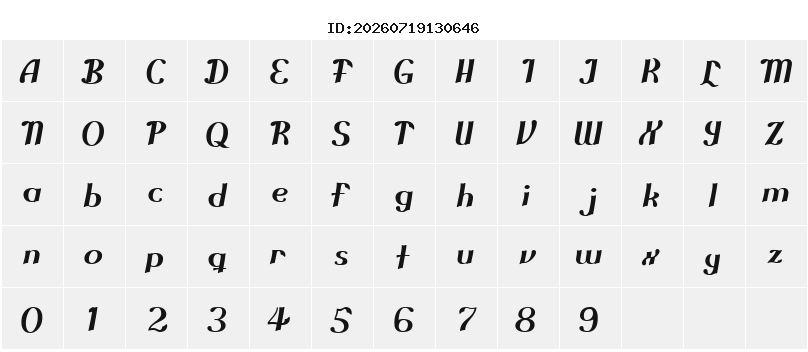
Cloud Control Preview
• Font Name: Cloud Control
• Font ID: TemplateCloud: Cloud Control: 2013
• Full Font Name: Cloud Control
• PostScript Name: CloudControl
• Character Count: 206
• Manufacturer: TemplateCloud
About Cloud Control.ttf
Cloud Control.ttf is a modern, elegant sans-serif font designed for ultimate readability and visual harmony. Perfect for branding, headlines, web design, and print materials.